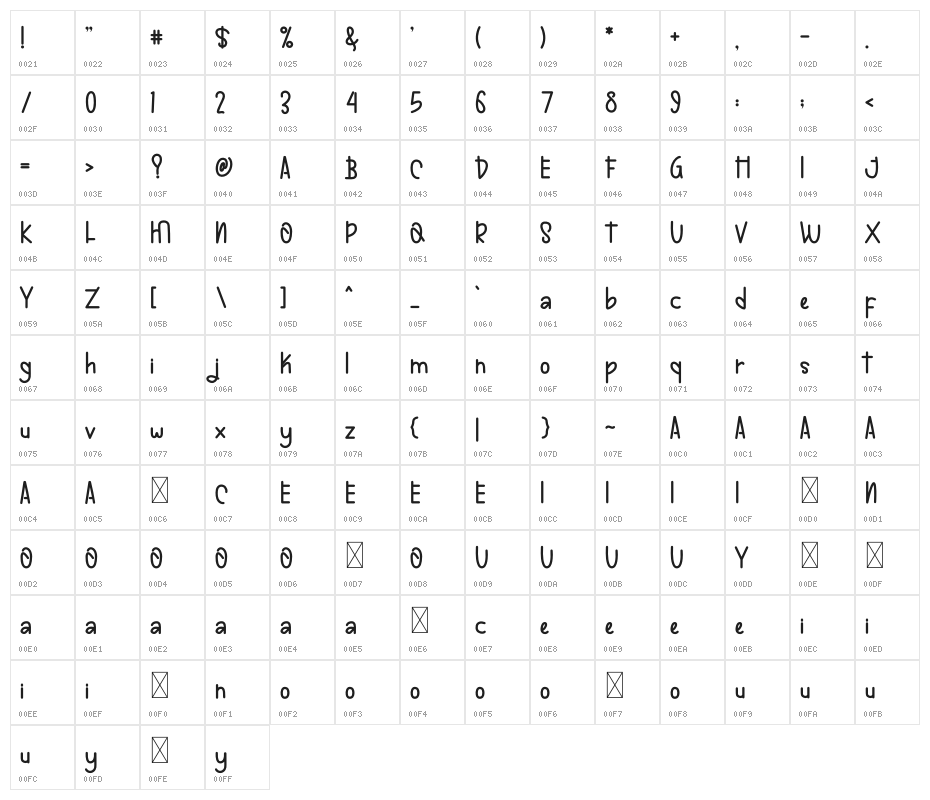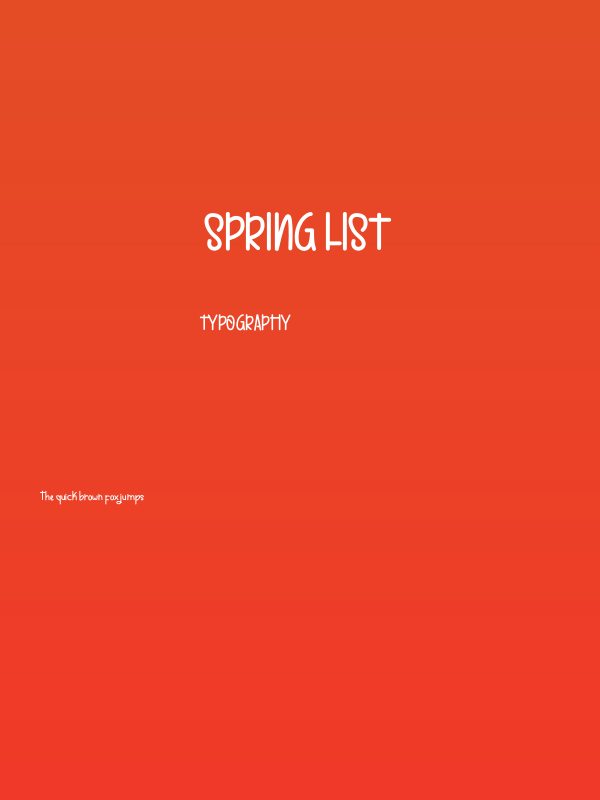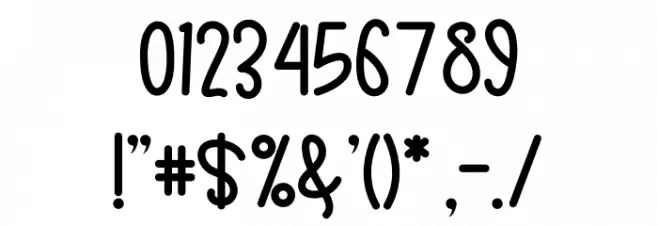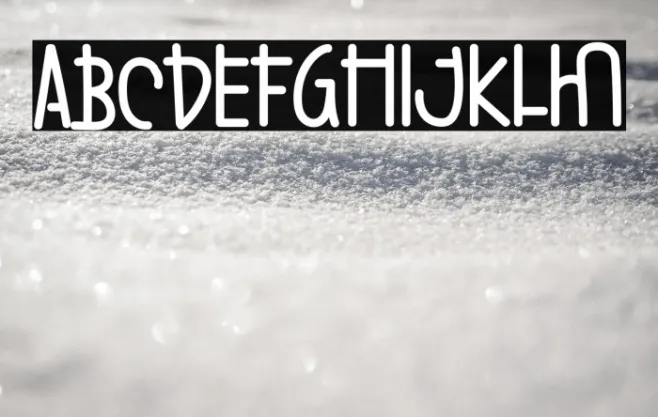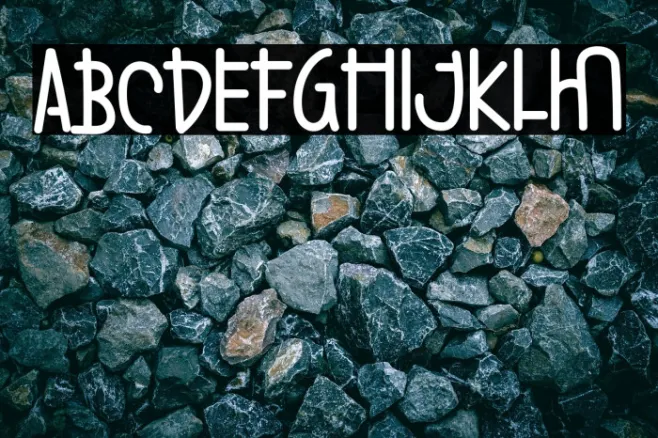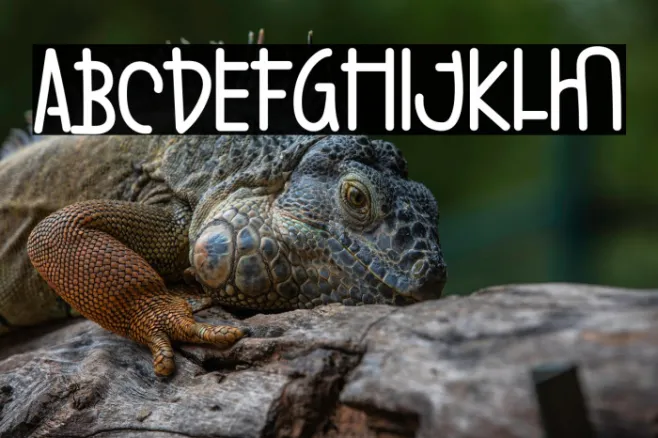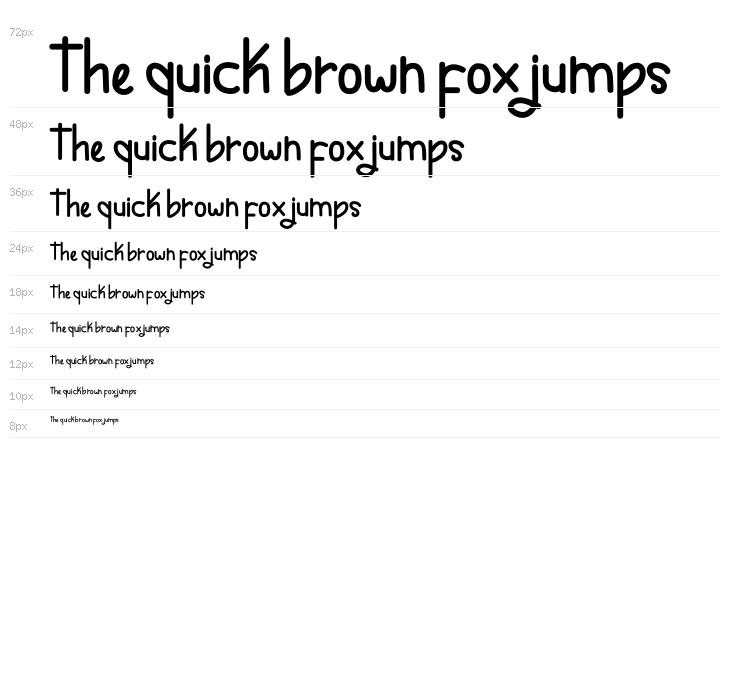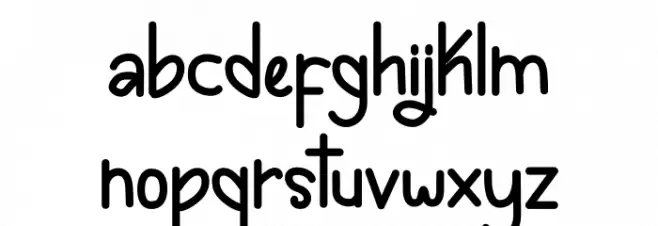
SPRING LIST Font
SPRING LIST Description
This font features a playful and whimsical style with rounded edges and a hand-drawn appearance. The characters are slightly elongated, giving them a unique and friendly look. The uppercase and lowercase letters maintain a consistent style, with a slight variation in stroke width that adds to the font's charm. Numbers and special characters are designed to match the overall aesthetic, making this font versatile for various creative projects. Its informal and approachable design makes it suitable for casual and fun applications.
| Proposed Projects | Ideal for children's books, greeting cards, playful branding, and social media graphics. |